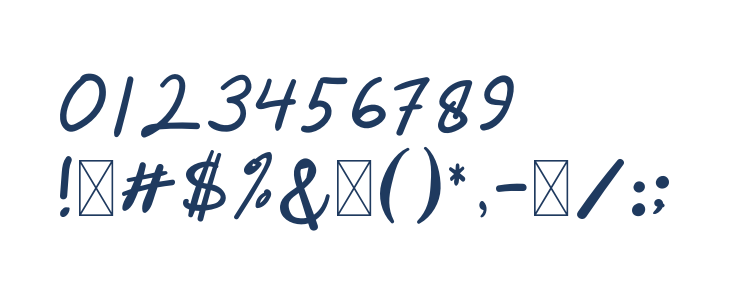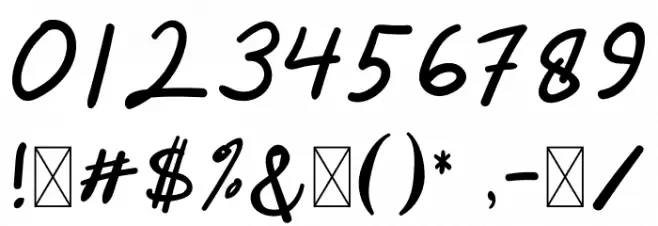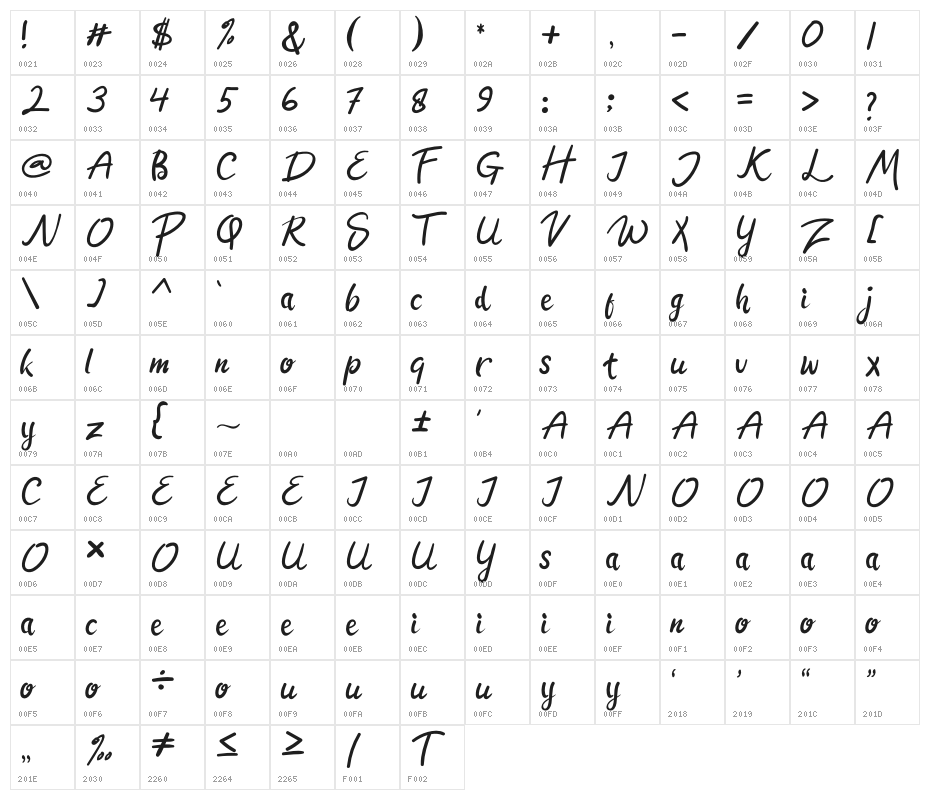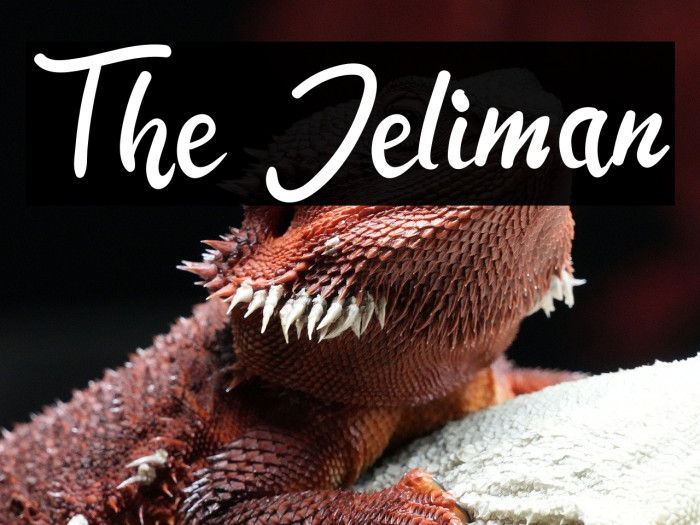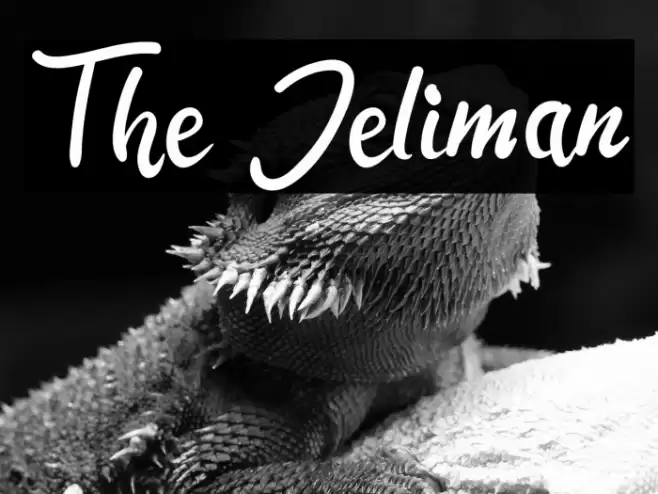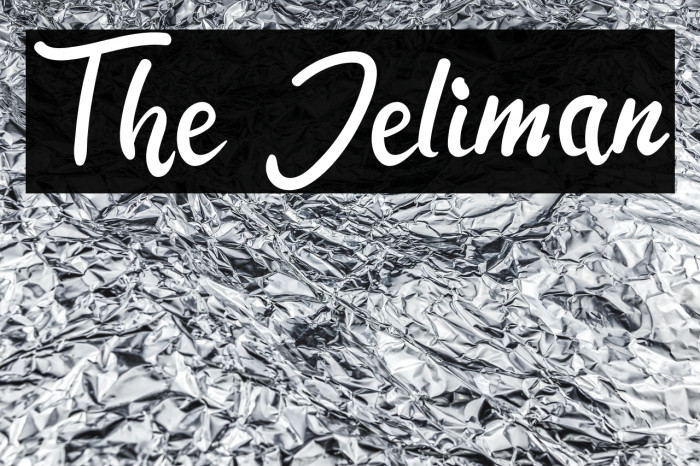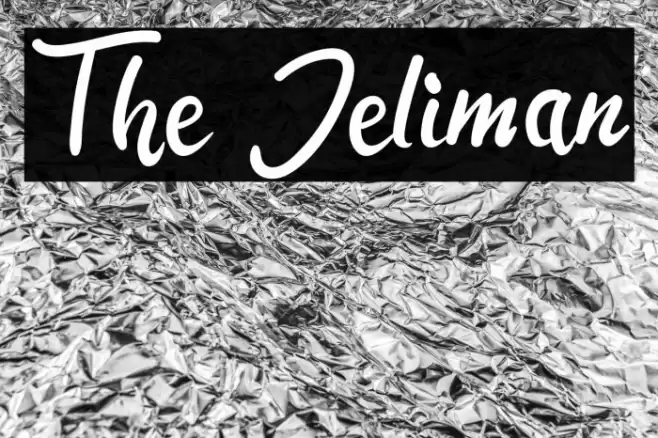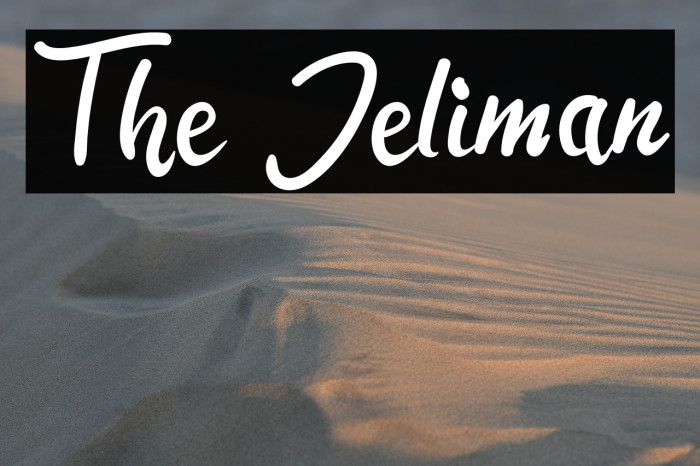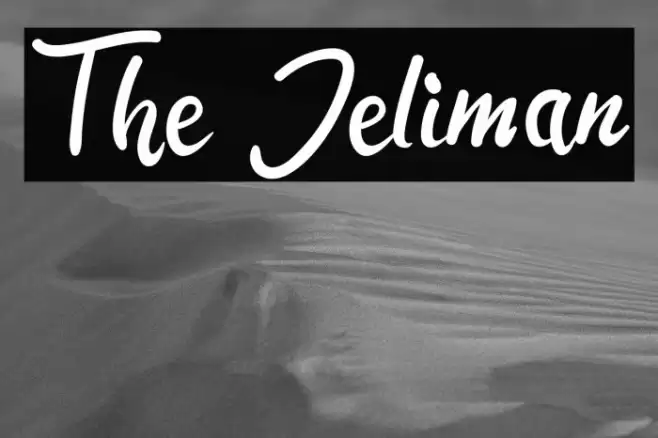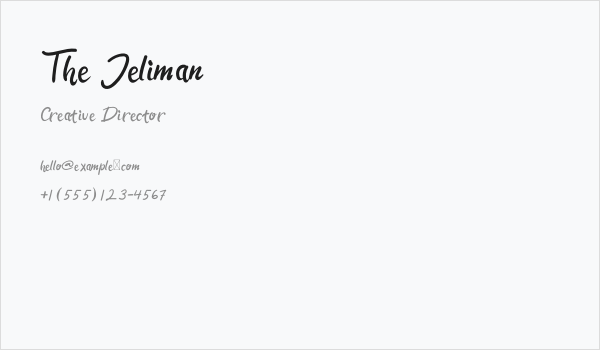
The Jeliman Font
The Jeliman Description
This font features a lively and dynamic script style, characterized by its fluid and connected letterforms. The uppercase letters exhibit a playful yet elegant flair, with varying stroke widths that add a sense of movement and energy. The lowercase letters maintain a consistent flow, enhancing readability while retaining the font's expressive nature. Numbers and special characters are designed to match the overall aesthetic, ensuring a cohesive look across all text elements. The font's design is suitable for projects that require a personal touch, such as invitations, greeting cards, and branding materials. Its unique style makes it stand out, offering a modern twist on traditional script fonts.
| Proposed Projects | Ideal for invitations, greeting cards, branding materials, and any project needing a personal touch. |